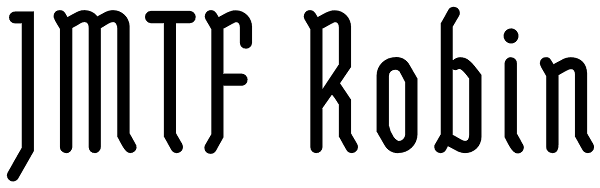
JMTF Robin
JMTF Robin is a new post-modernist typeface in the spirit of Art & Crafts, born as a concept of a reformulation of a Gothic traditional building structure. Interestingly medieval structural architectural rescue form is for creating a font of traits...